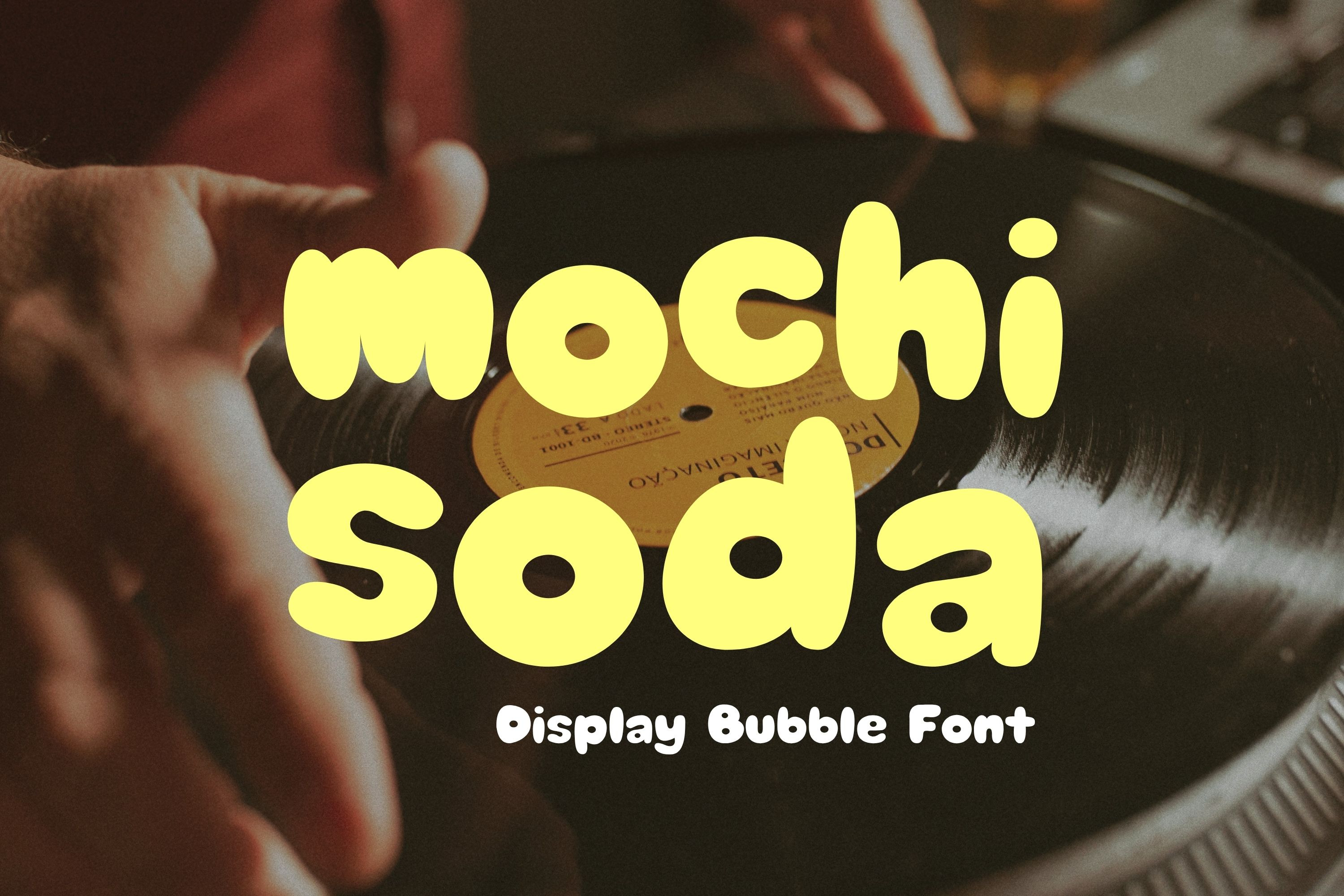
Retro Bubble Display Font-Mochi Soda
✨ Mochi Soda Font – Cute & Playful Bubble Typeface ✨
Add a splash of fun and personality to your designs with Mochi Soda, a soft, rounded bubble font perfect for creative projects! This font is designed with a kawaii, cartoon-inspired aesthetic that makes it ideal for both personal and commercial use.